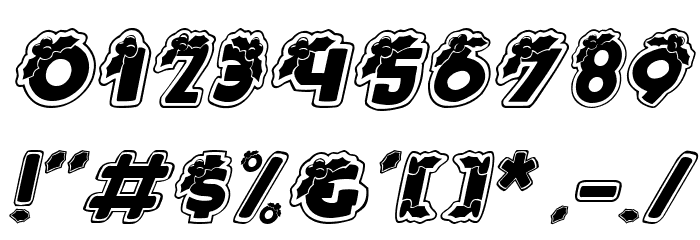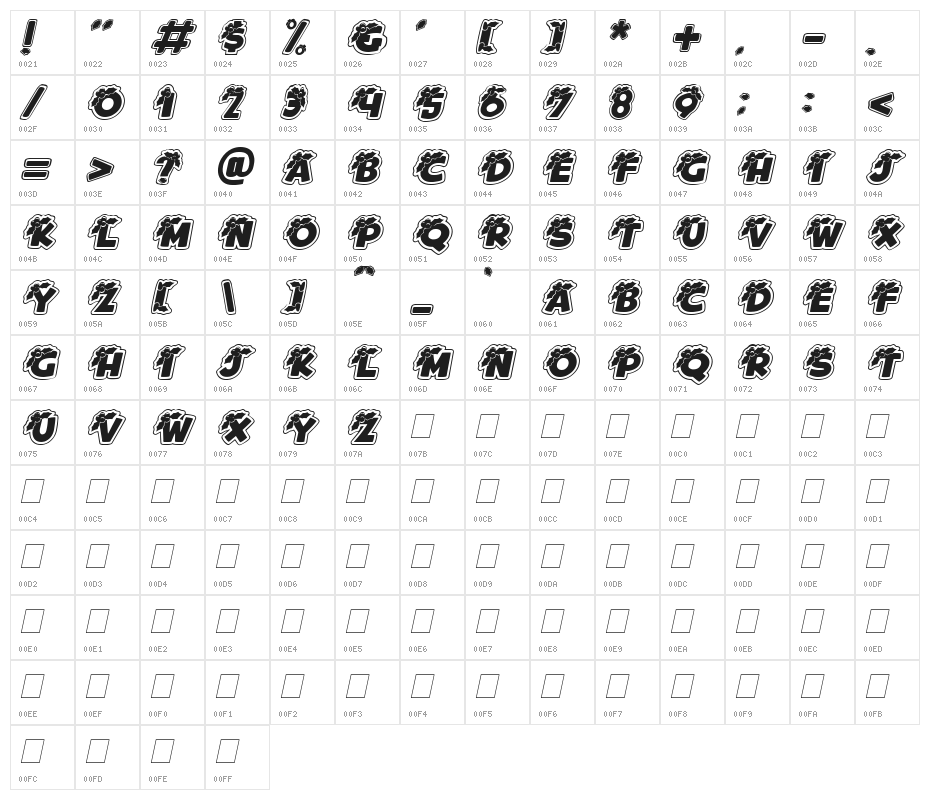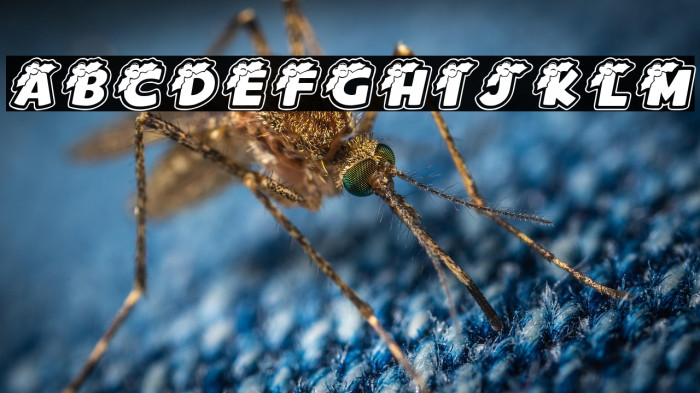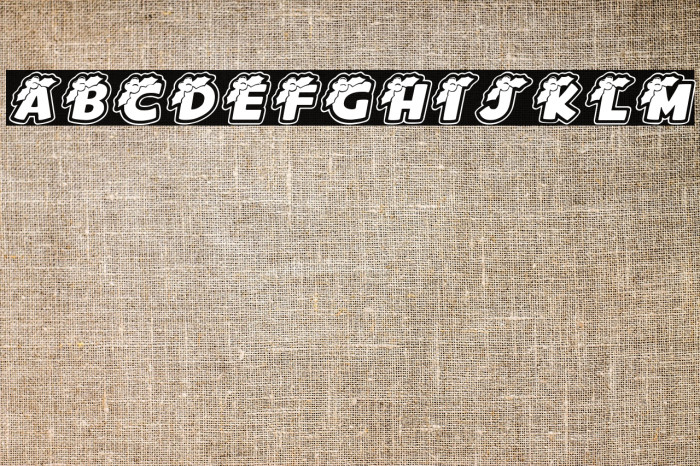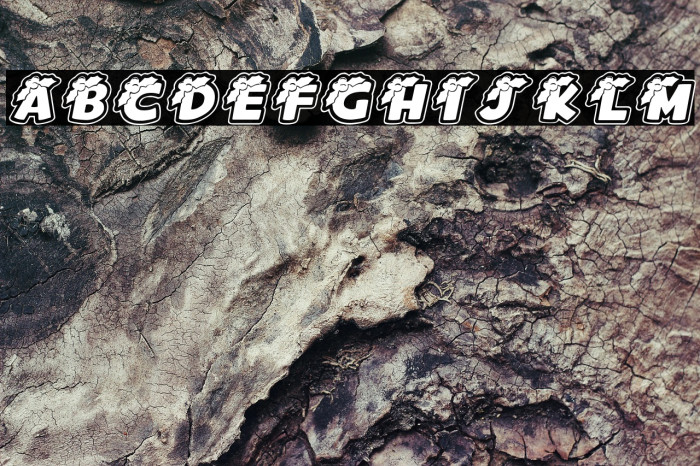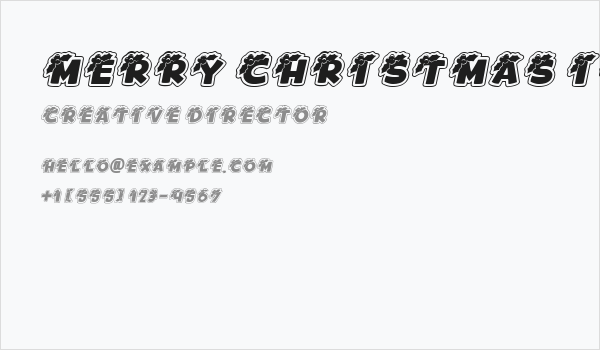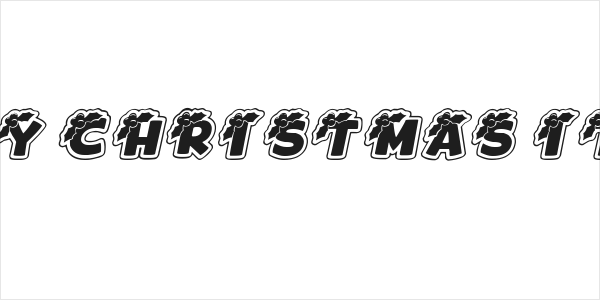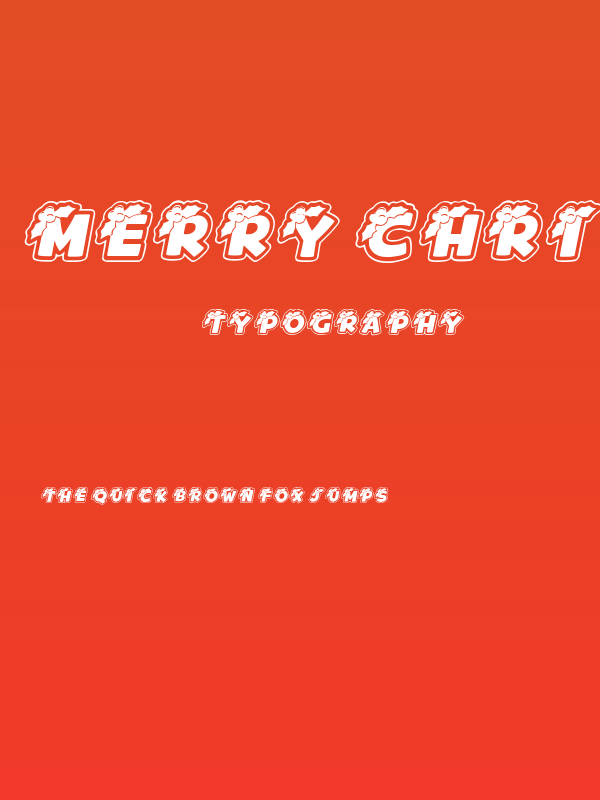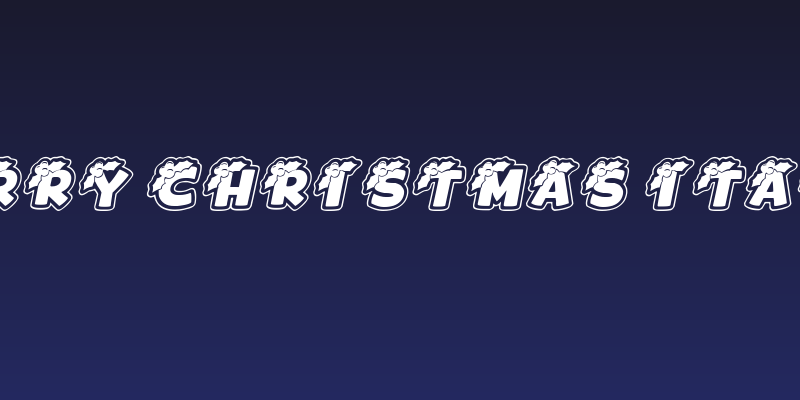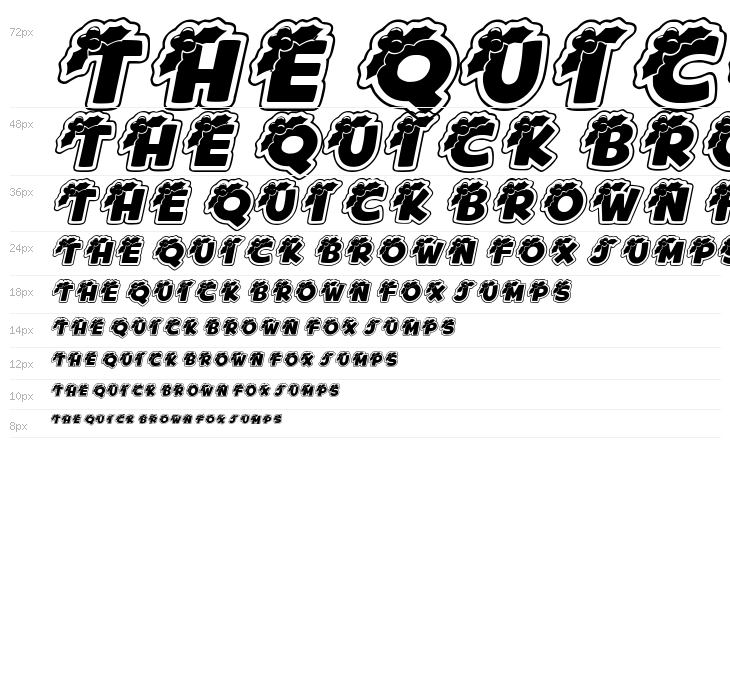
Merry Christmas Italic Font
Merry Christmas Italic Description
This festive font features a playful and bold design with a decorative outline that resembles snow or frost, adding a holiday-themed touch. The characters are uppercase and lowercase letters, numbers, and special symbols, all styled with a consistent icy embellishment. The font's boldness and unique style make it ideal for capturing the spirit of the holiday season. Its whimsical and decorative nature is perfect for projects that require a festive and cheerful appearance.
| Proposed Projects | Ideal for holiday greeting cards, festive banners, Christmas-themed posters, and seasonal advertisements. |